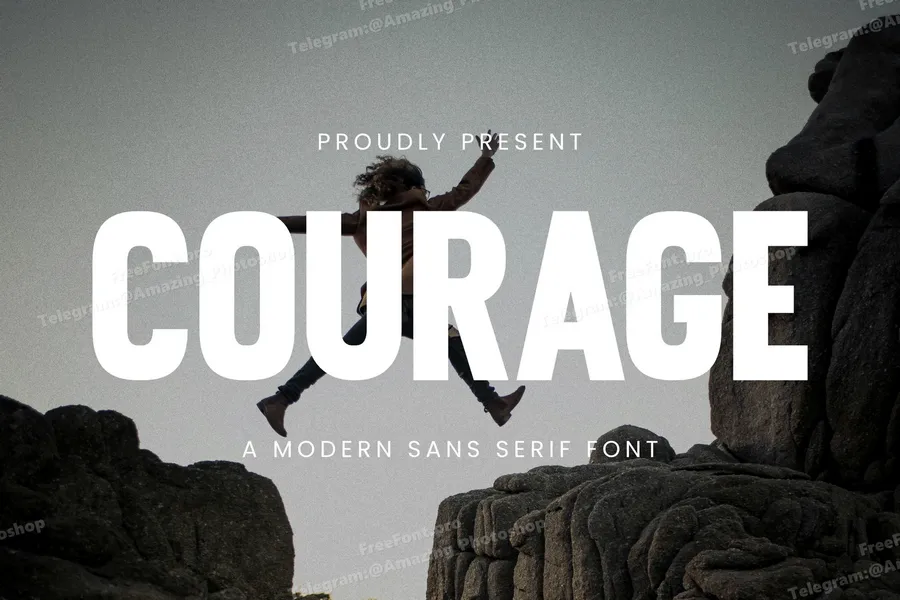
Courage – Bold Modern Sans Serif Font
Courage is a bold modern sans serif font designed for impactful statements and clear communication. Featuring strong, clean lines and a commanding presence, this typeface is ideal for designers who want to convey strength, confidence, and clarity in their work.
Perfectly suited for dynamic headlines, bold branding, statement posters, editorial layouts, and modern packaging, Courage brings structure and power to every letterform. Whether you’re creating tech-forward designs, minimalist logos, or motivational visuals, Courage delivers with assertiveness and style.
Let Courage empower your creative direction with its strong and confident modern style.